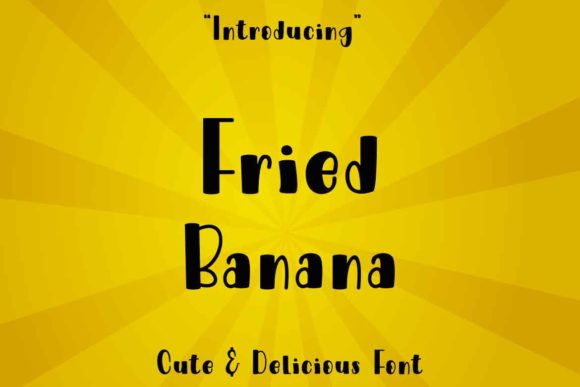
Step into a world of laughter and eccentricity with Fried Banana Font, the display font that oozes fun, quirkiness, and authenticity. This enchanting creation by Supersemar Letter is a playful masterpiece that will transform your creative visions into genuine showstoppers.
Unleash your inner artist and let Fried Banana Font ignite your imagination. Its unique playfulness adds an irresistible charm to any crafting project, making it the perfect choice for those seeking to infuse their designs with a dash of whimsy and individuality.
Transport yourself to a realm where creativity knows no bounds. With Fried Banana Font as your artistic companion, you'll craft designs that radiate joy, humor, and a touch of delightful chaos. This remarkable font is guaranteed to leave an unforgettable impression, captivating audiences with its infectious energy and distinctive character.
Fried Banana Font is an open invitation to embrace your playful side and let your imagination run wild. Explore endless possibilities, from eye-catching logos that evoke laughter to vibrant posters that spread cheer wherever they go. Its versatility extends to social media posts, invitations, greeting cards, and countless other projects yearning for a touch of lighthearted fun.
With Fried Banana Font at your fingertips, you possess the power to evoke smiles, spark conversations, and leave a lasting impact on your audience. Its ability to effortlessly blend amusement with authenticity makes it an exceptional choice for designers, artists, and creative enthusiasts alike.
Join the ranks of those who dare to be different, those who embrace the power of laughter and self-expression. Embrace Fried Banana Font today and embark on a creative journey that promises endless joy and unforgettable experiences.